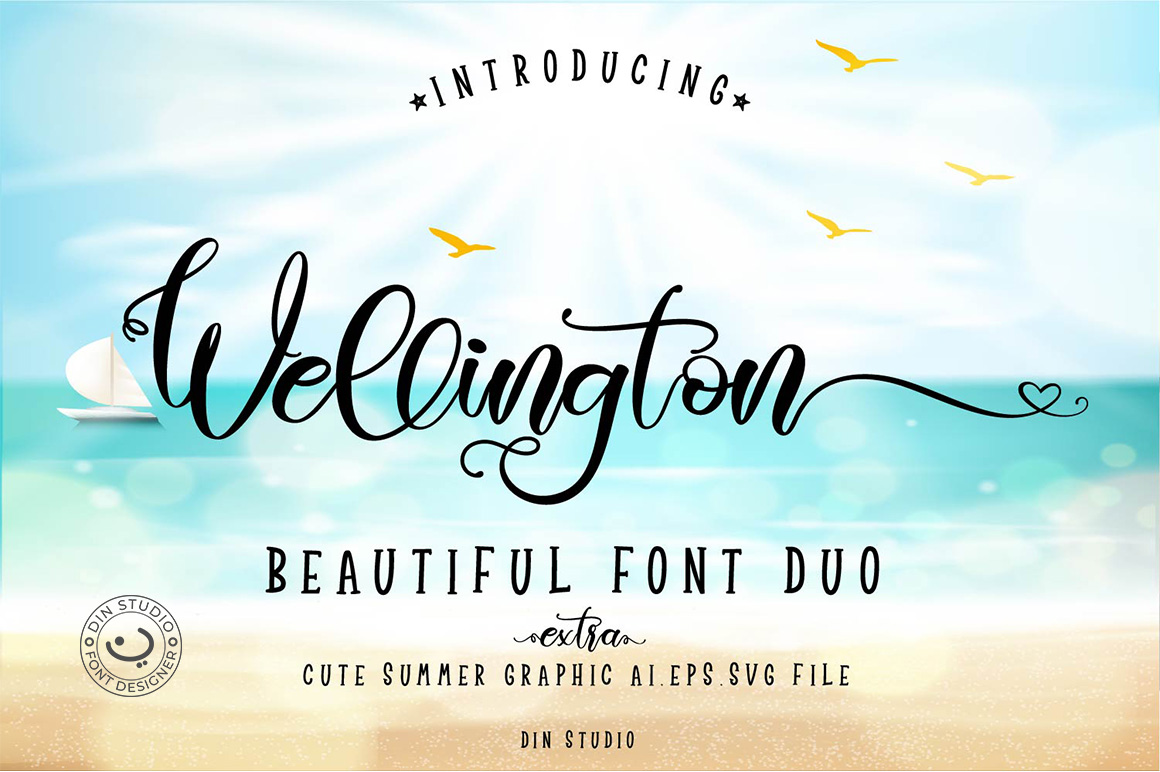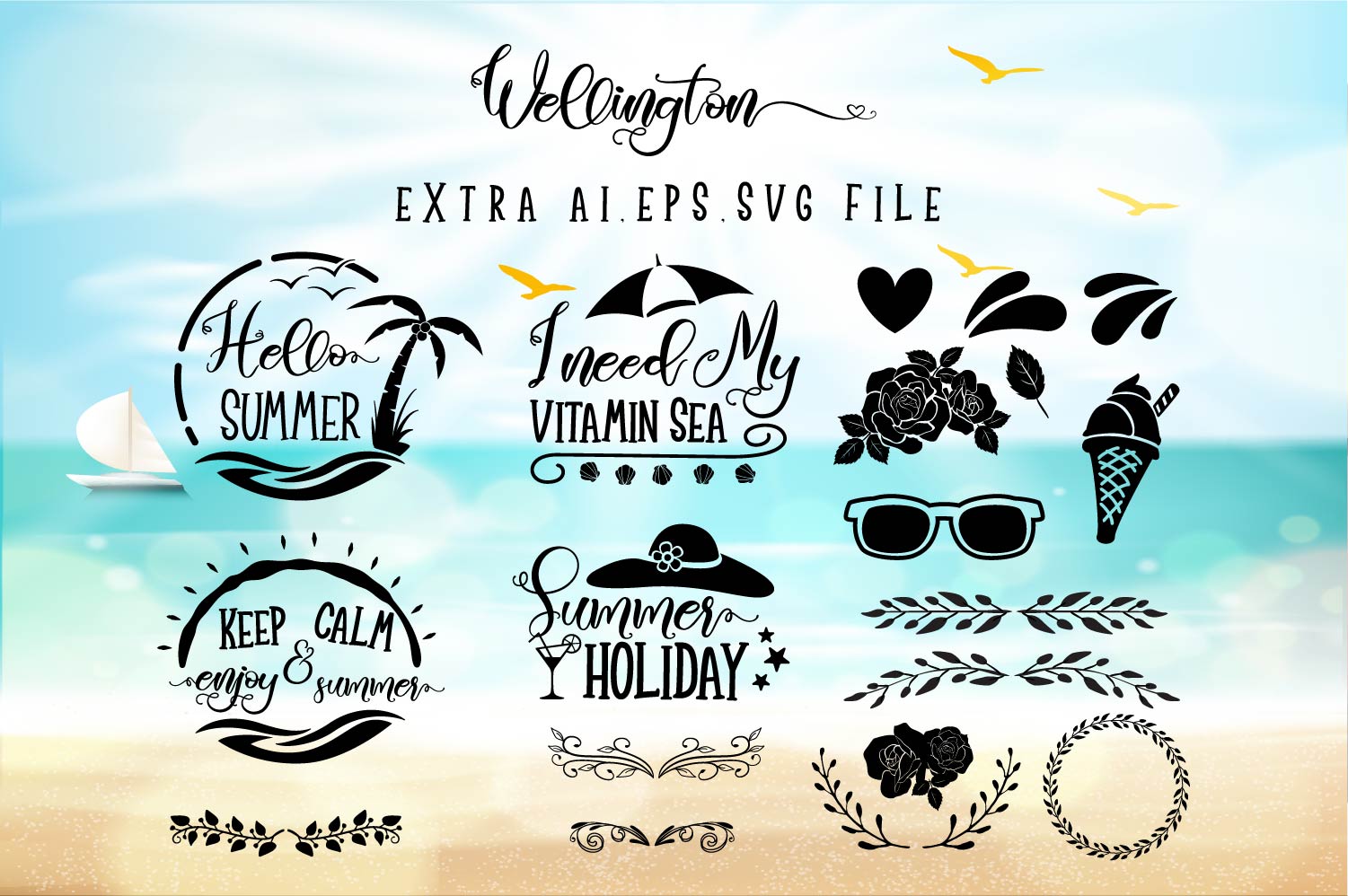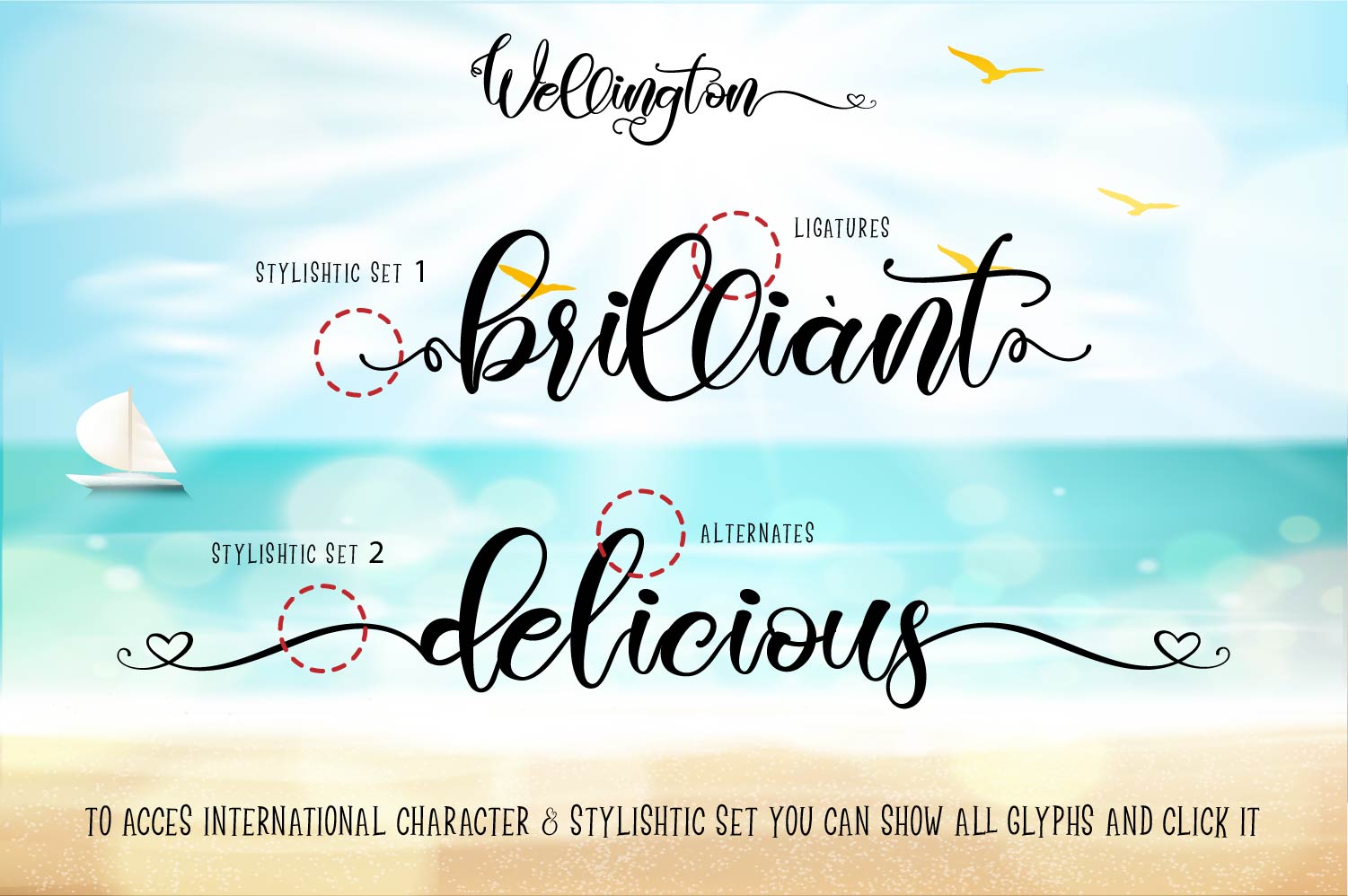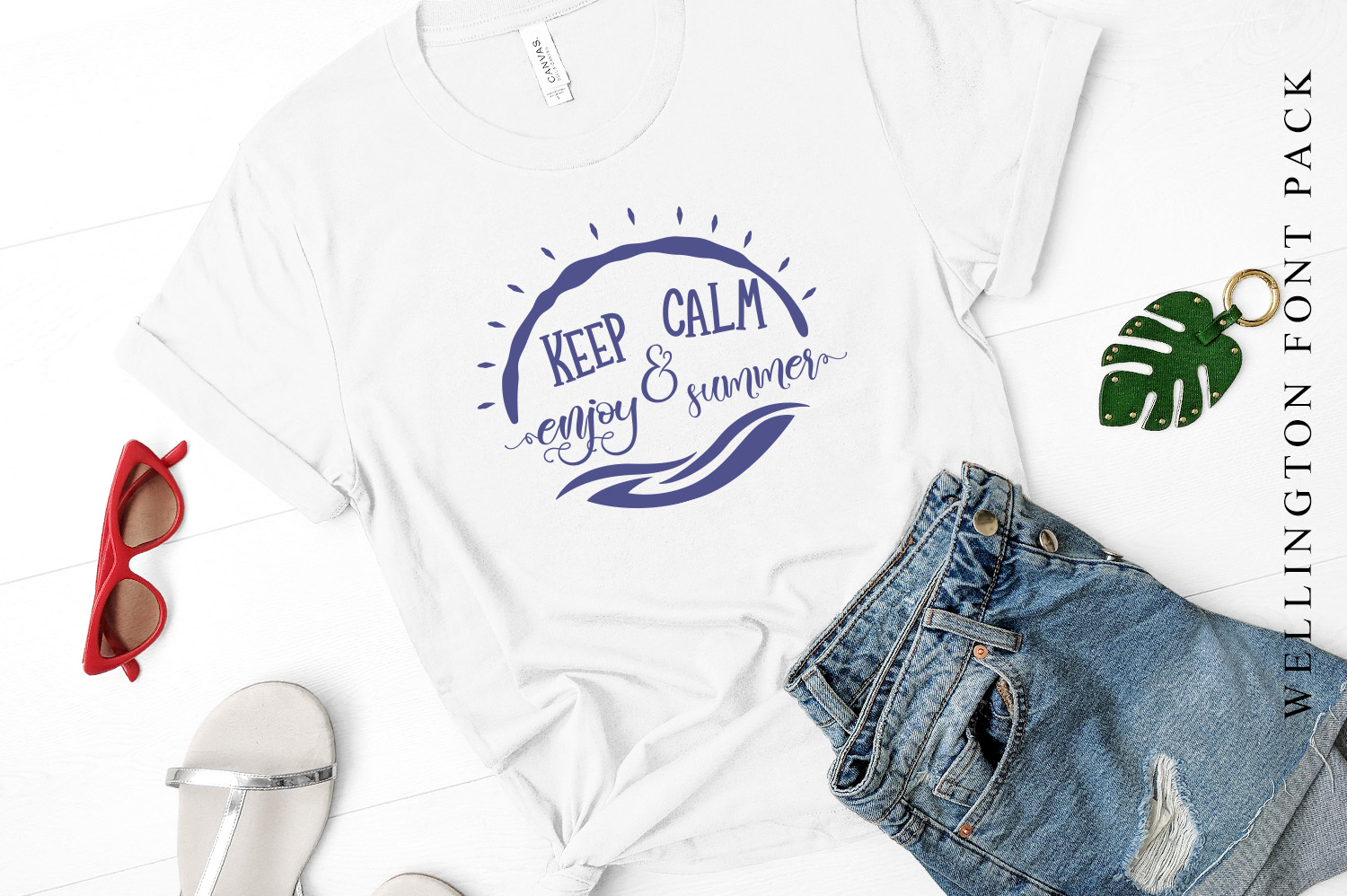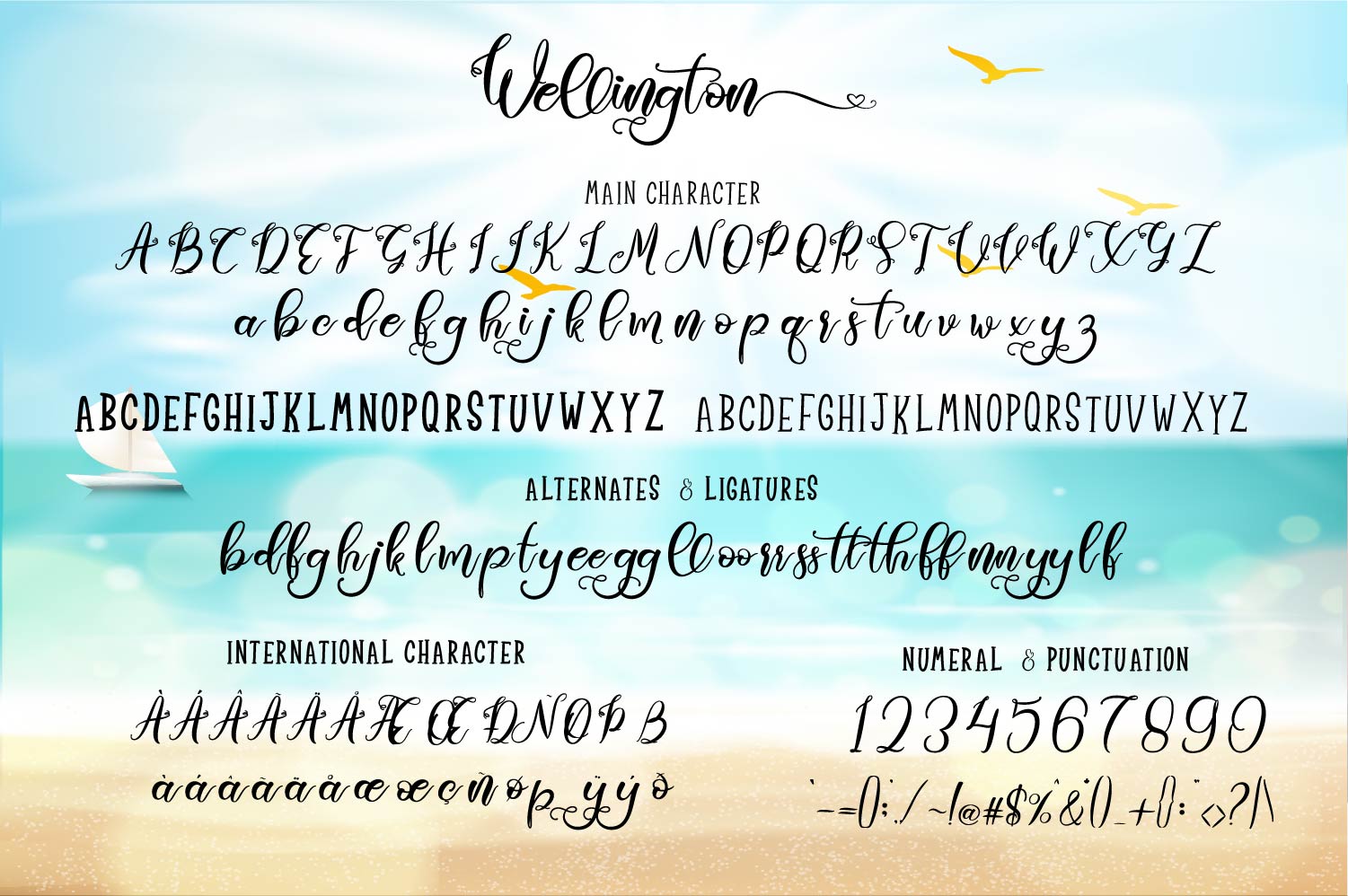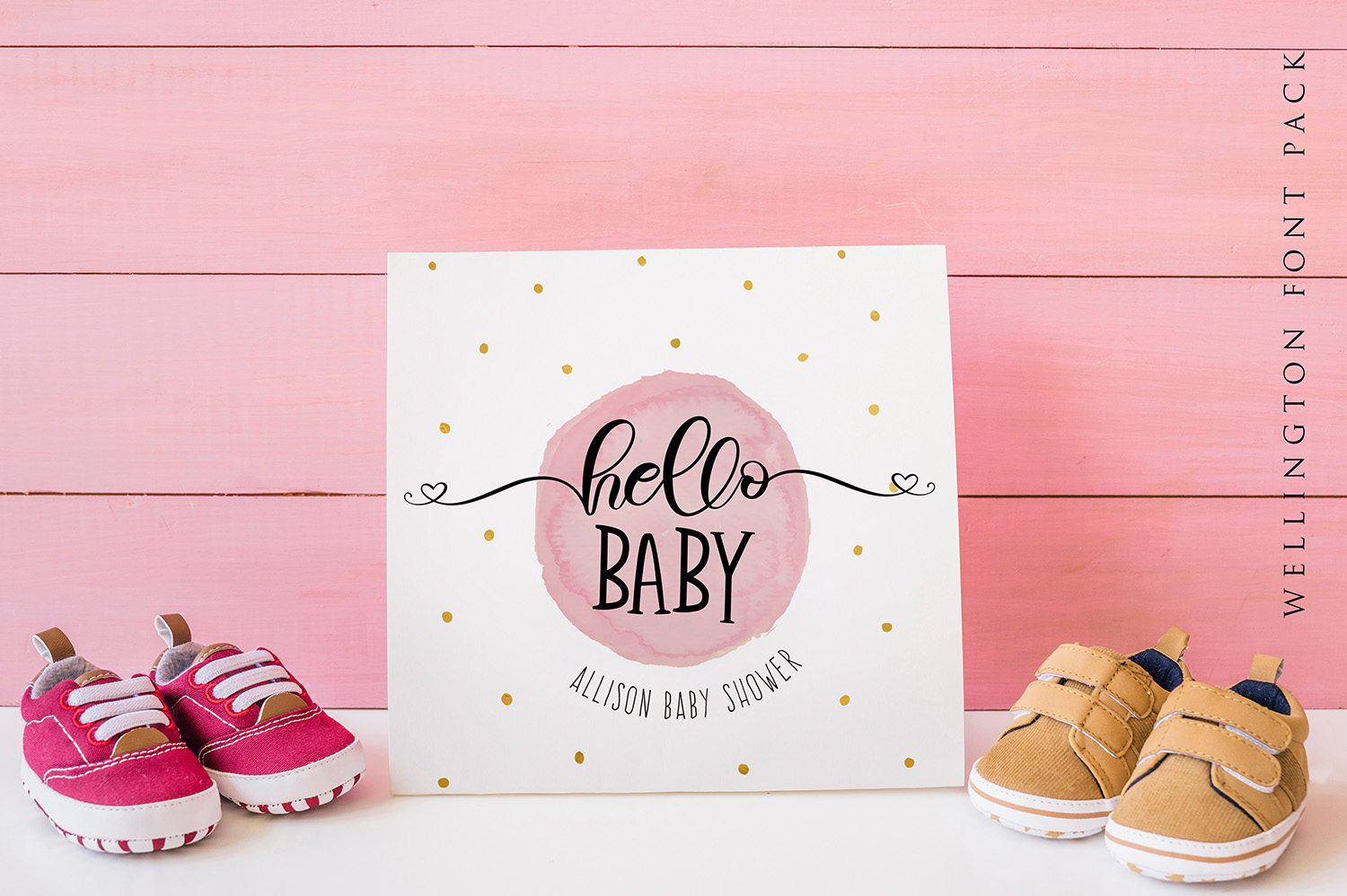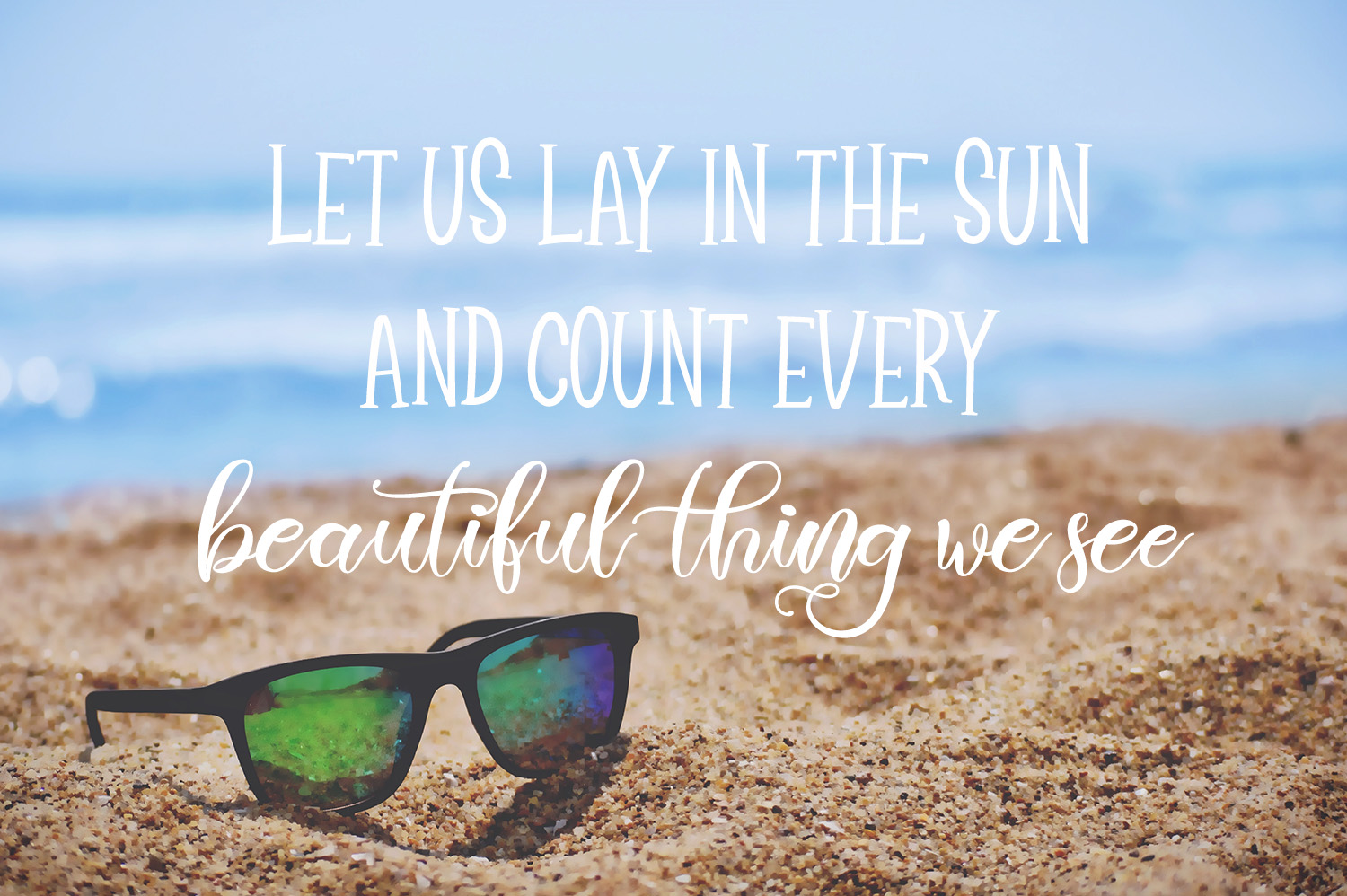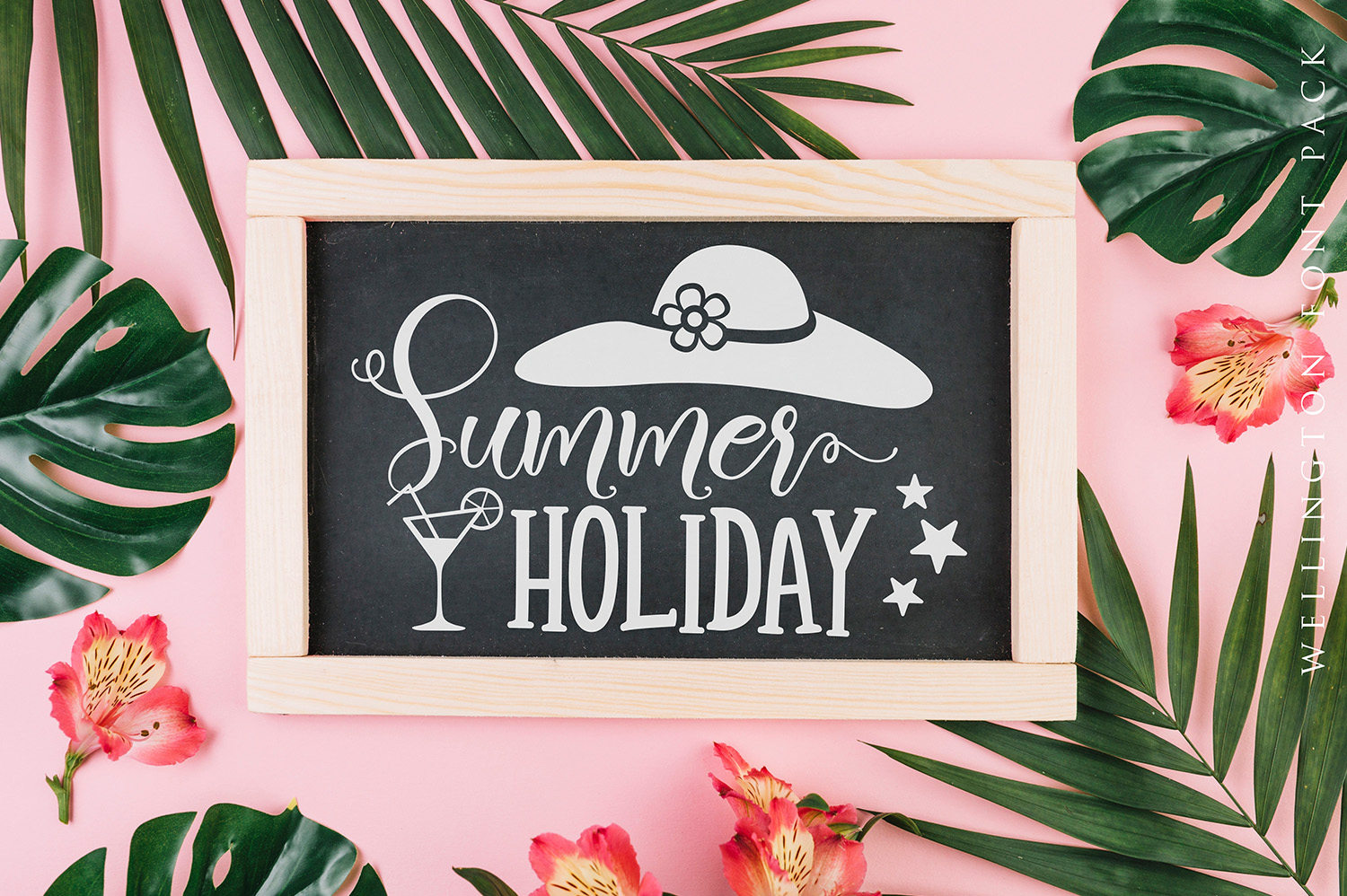
Wellington Family (2 fonts)
Wellington Font Duo Set is a modern and fun script font with many stylistic features. This font is suitable for branding projects, product packaging, quotes, greeting cards and all your other lovely projects.
The Wellington Font Duo Set comes with modern and playful styles and contains a full set of lower & uppercase letters, a large range of punctuation, numerals, multilingual support and many cute alternates. Product Content:
Features:
Two stylistic Alternates
Many ligatures and Alternates
Character Set A-Z
Numerals & Punctuations
Accents (Multilingual characters)